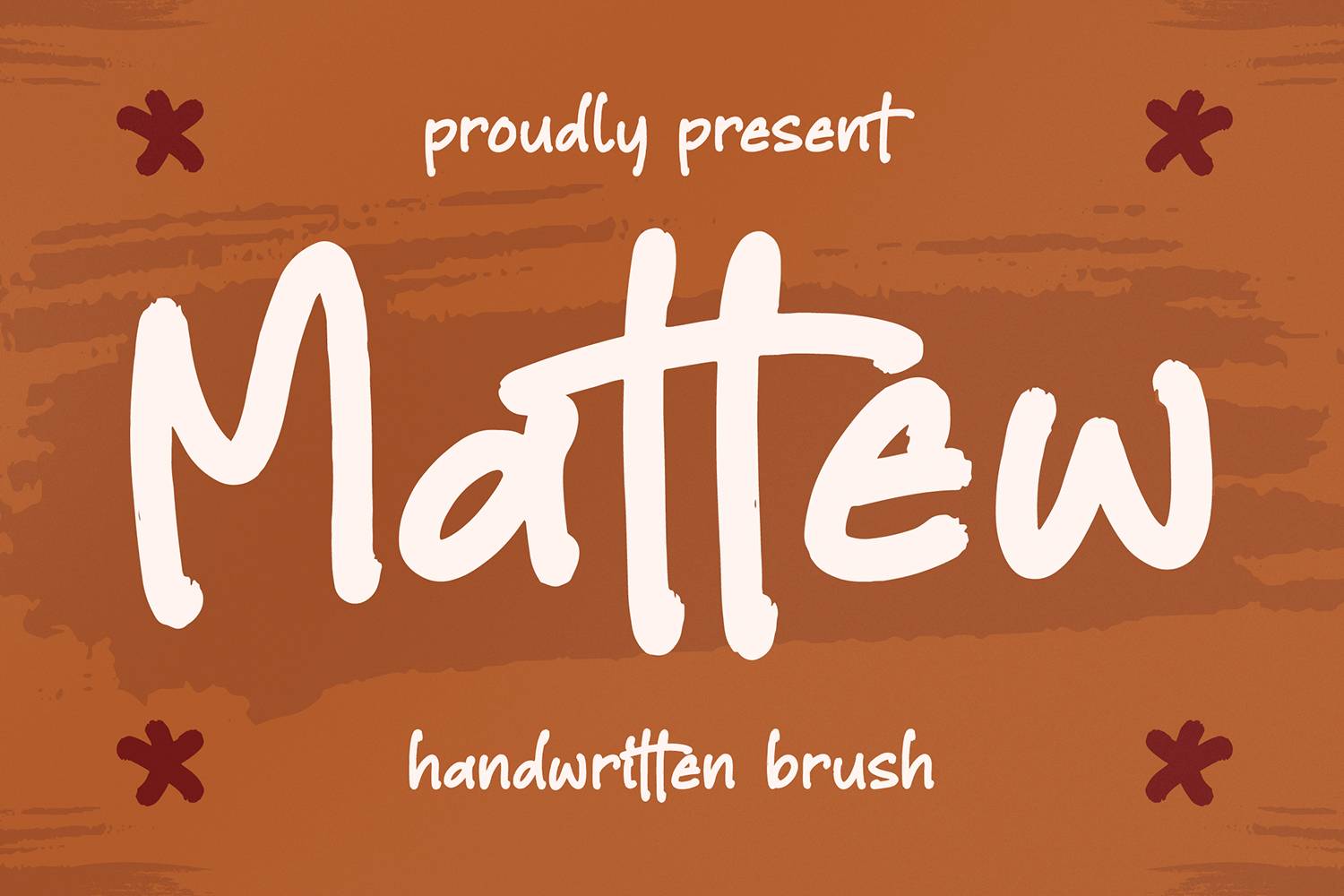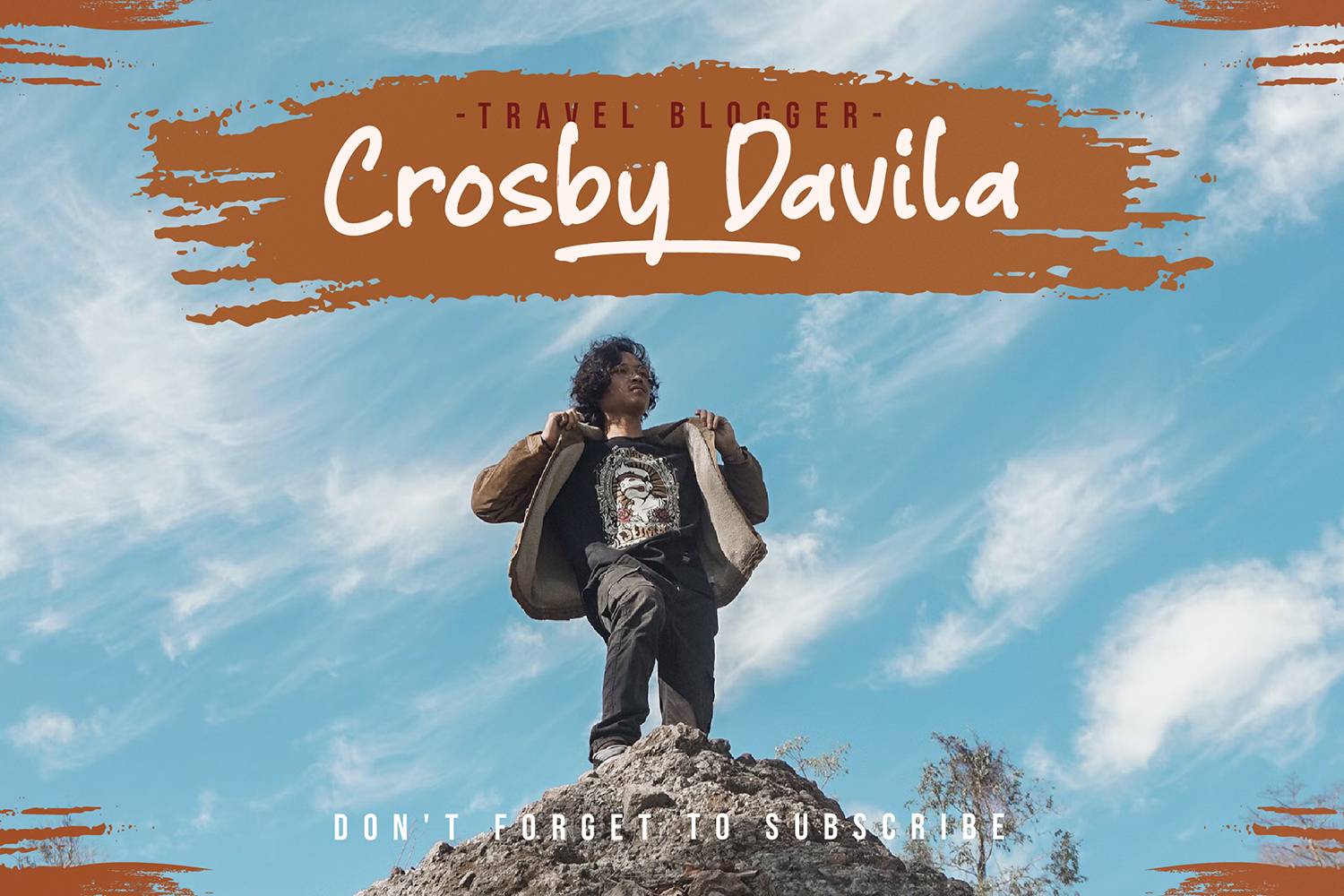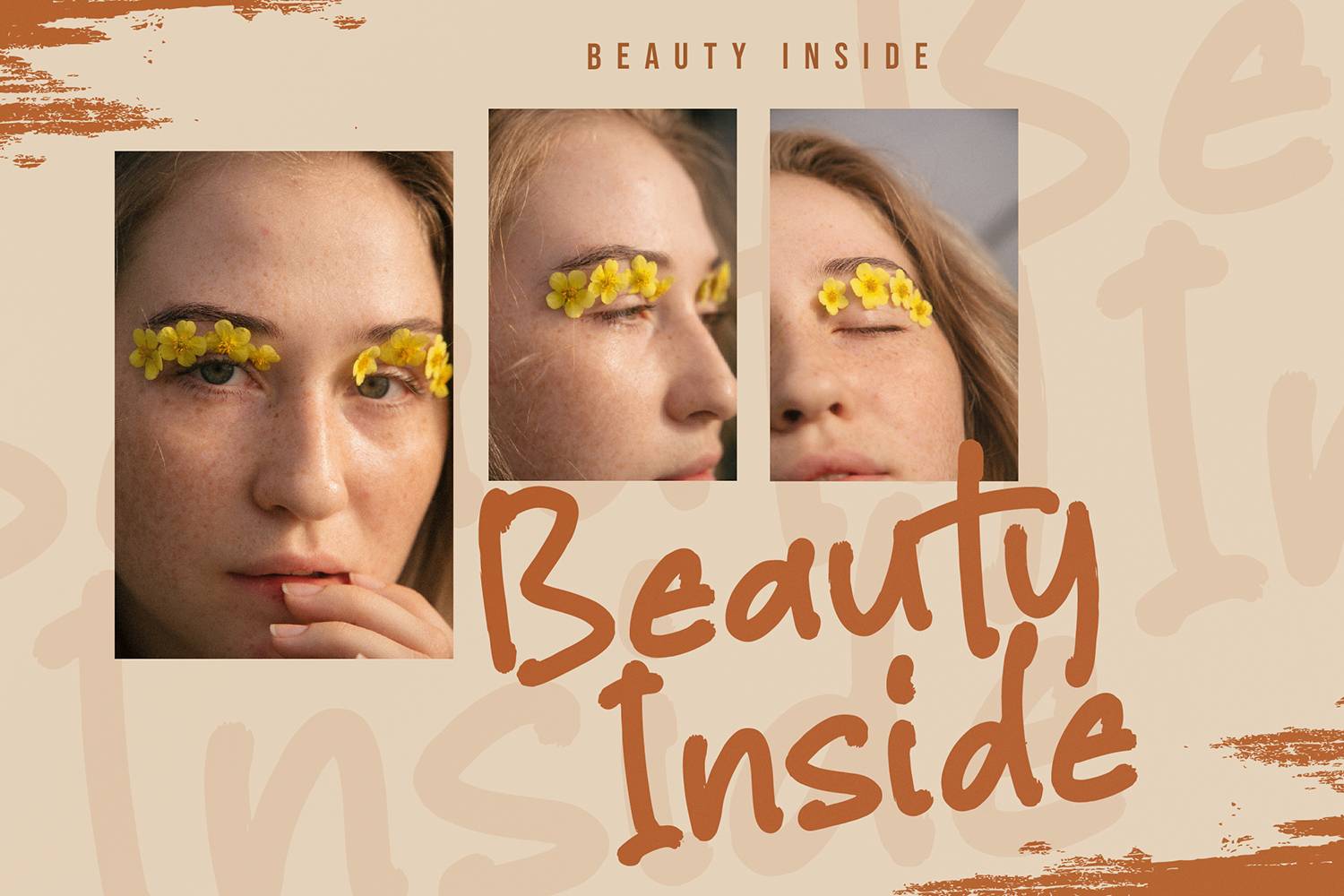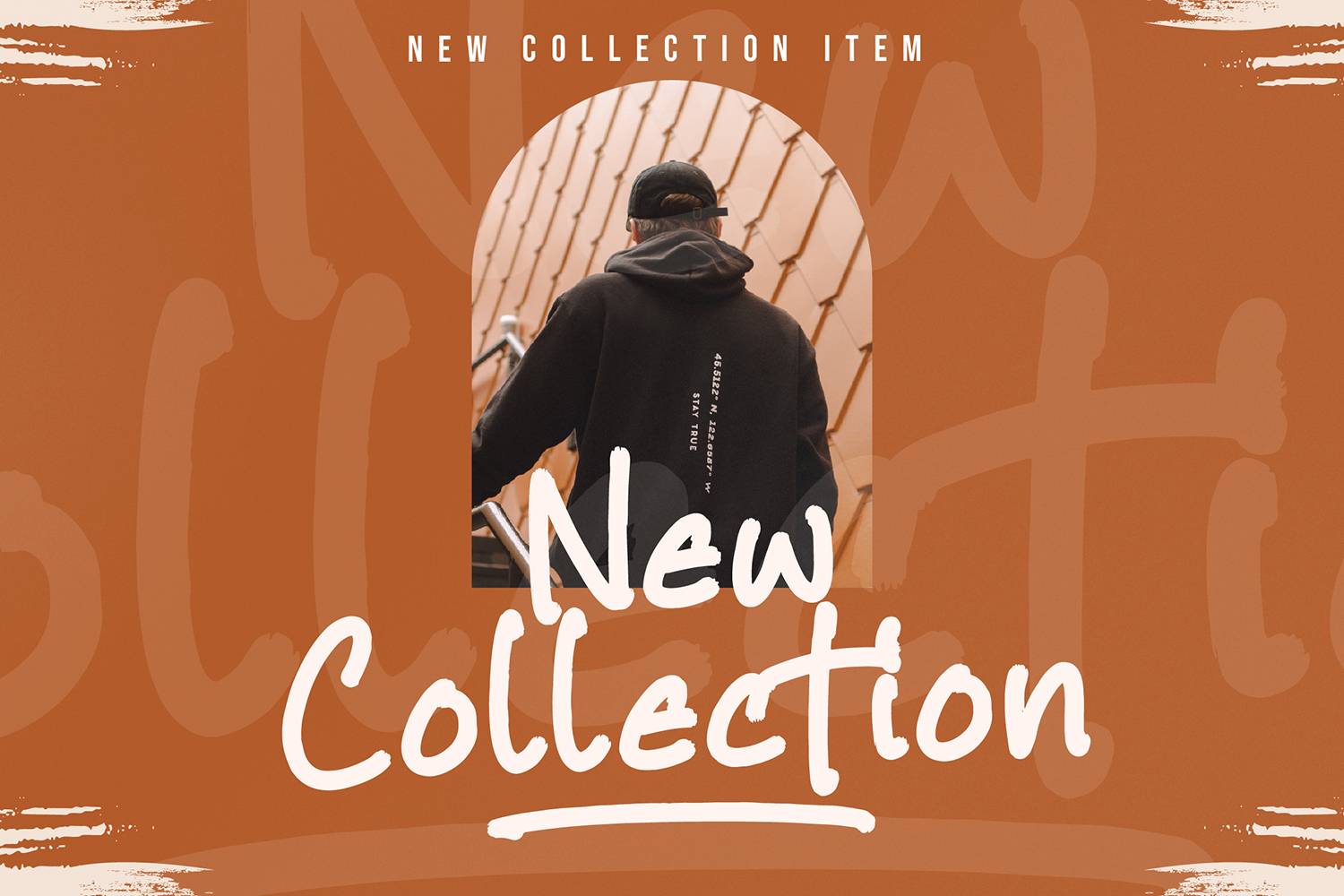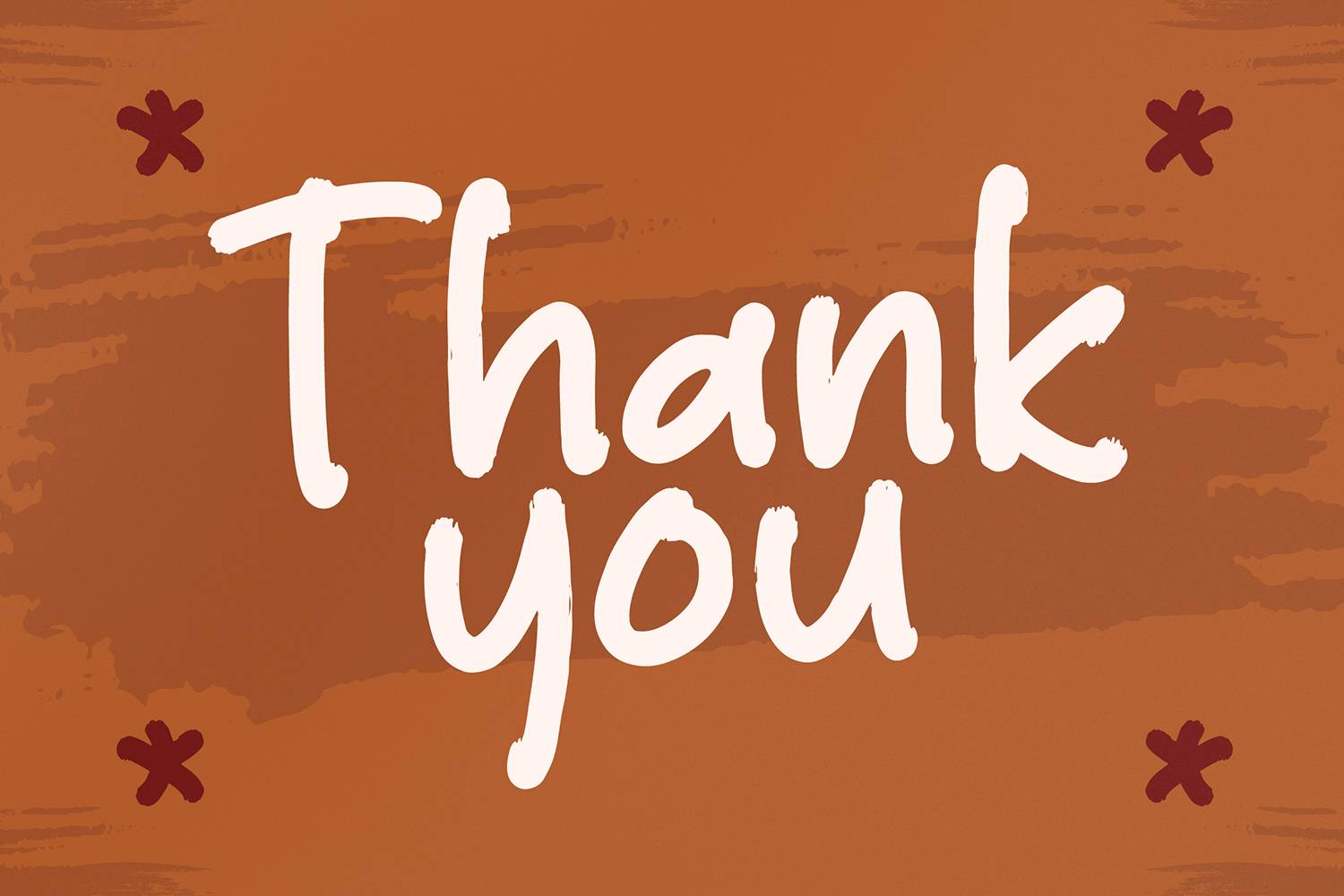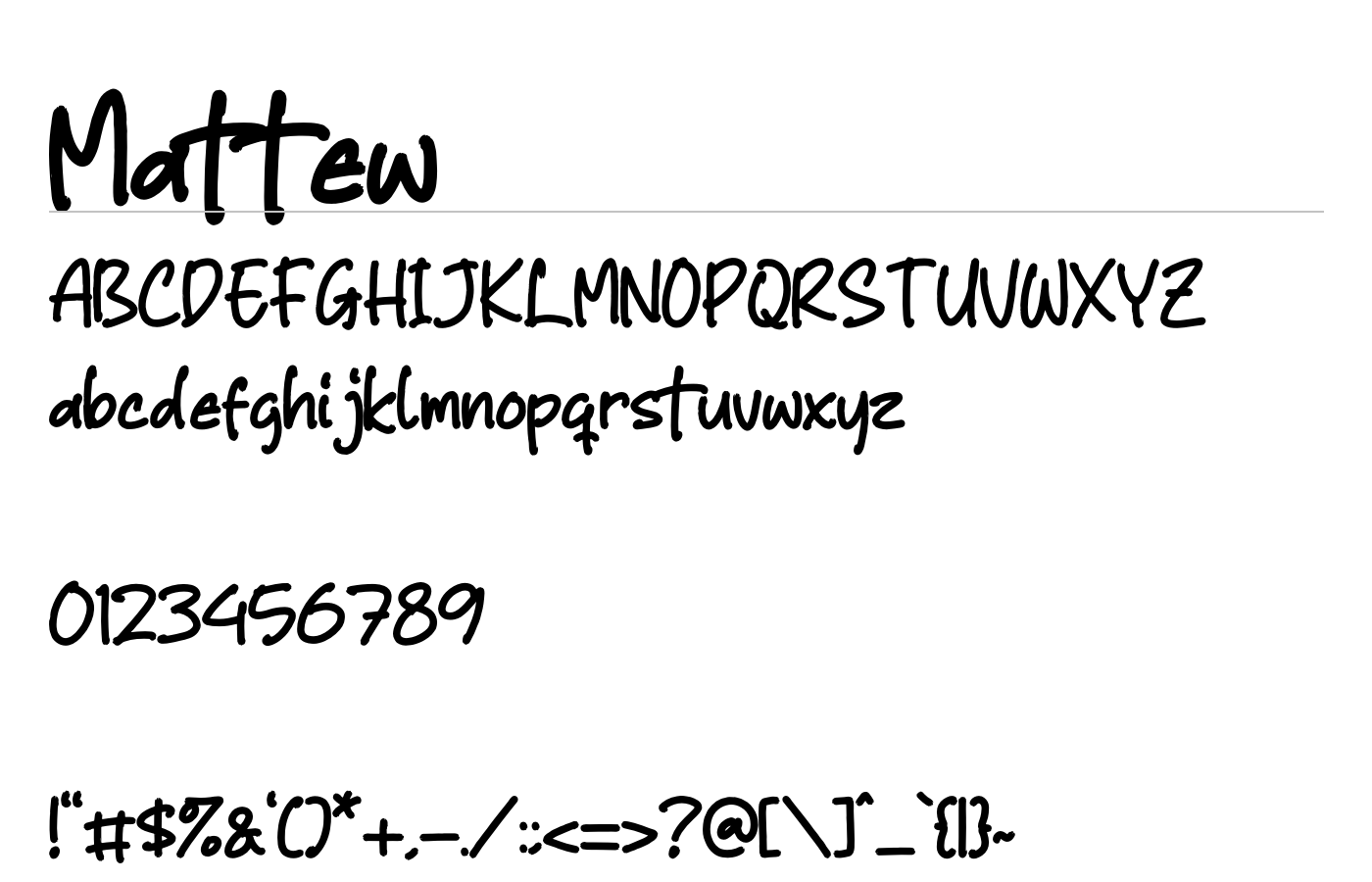
Mattew is a playful, casual handwritten sans serif font that feels warm and approachable with its uneven strokes and lively character shapes. Its medium weight and natural flow make it ideal for informal branding, creative projects, and friendly headlines where a personal touch is desired. This font works great for websites, packaging, and designs that want to convey creativity and friendliness without appearing overly formal.
Mattew Font
About Mattew Font